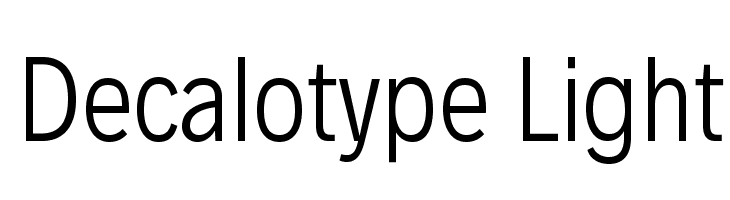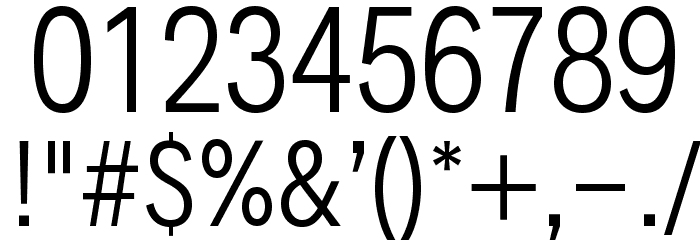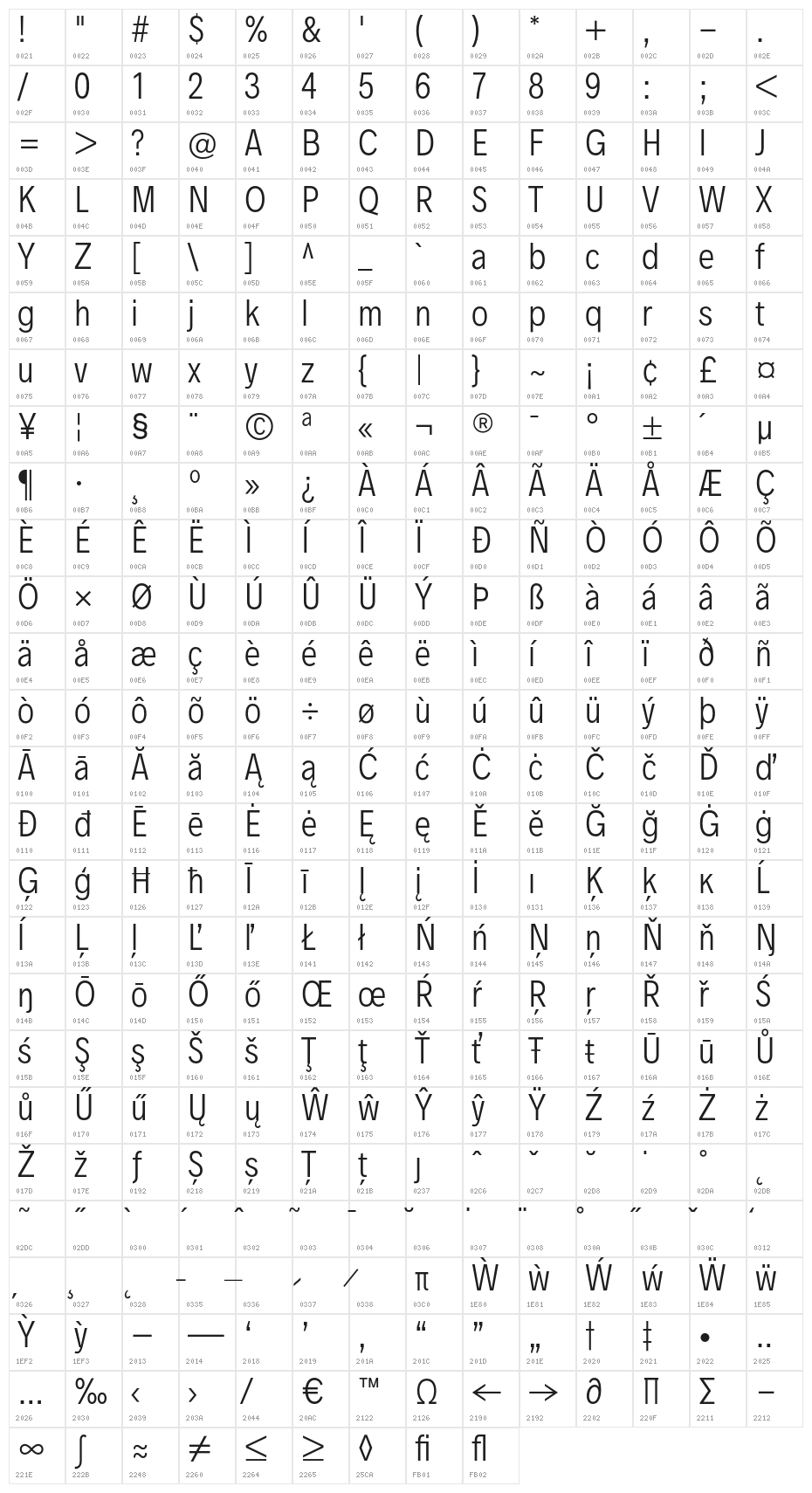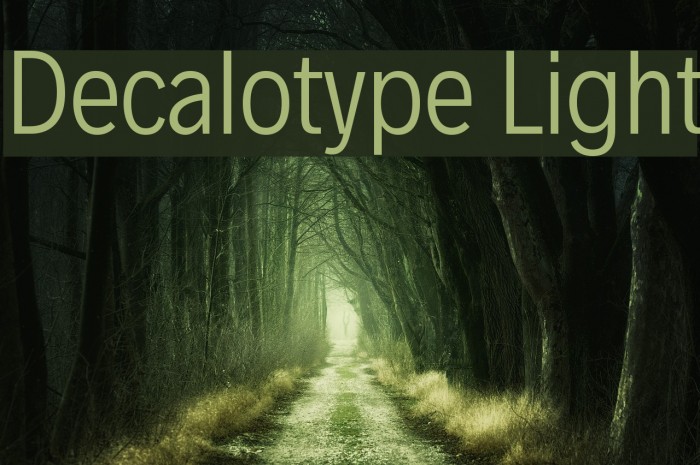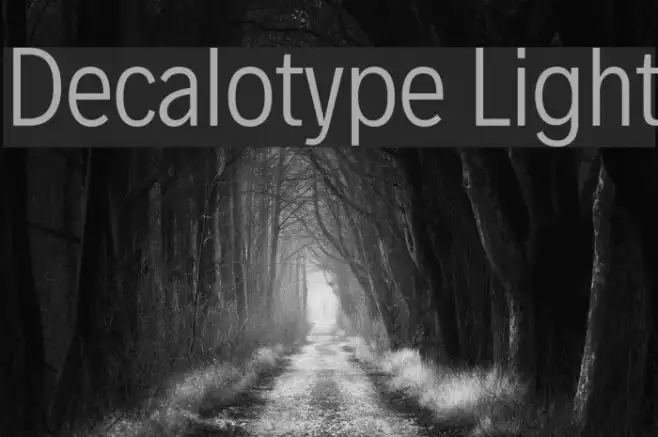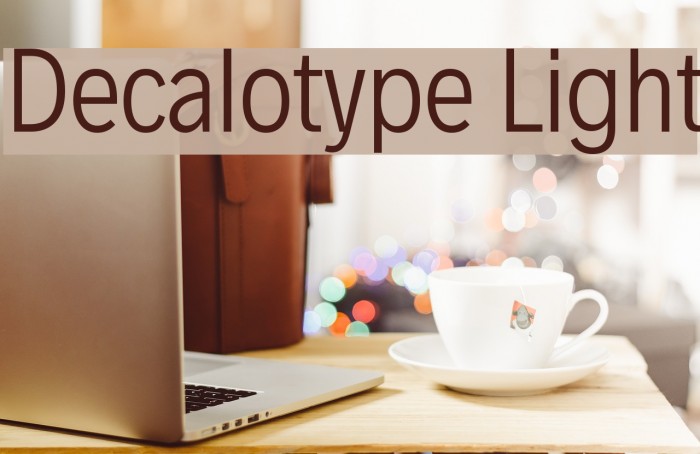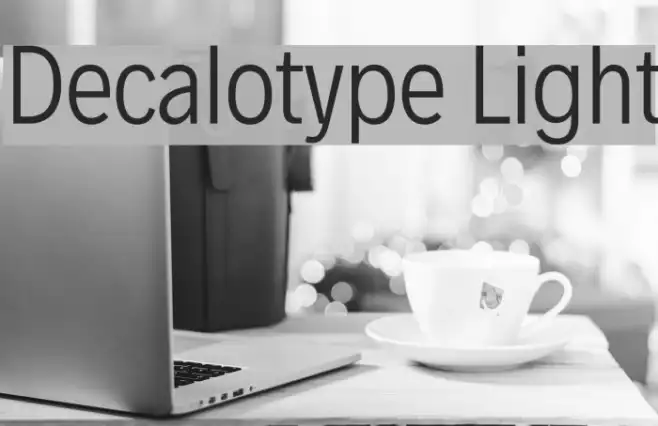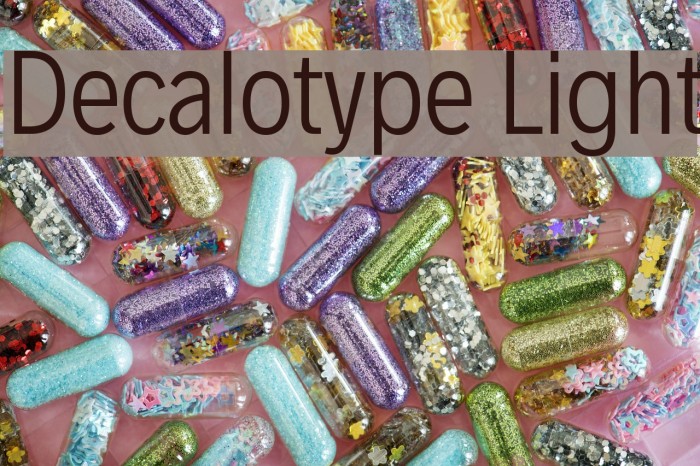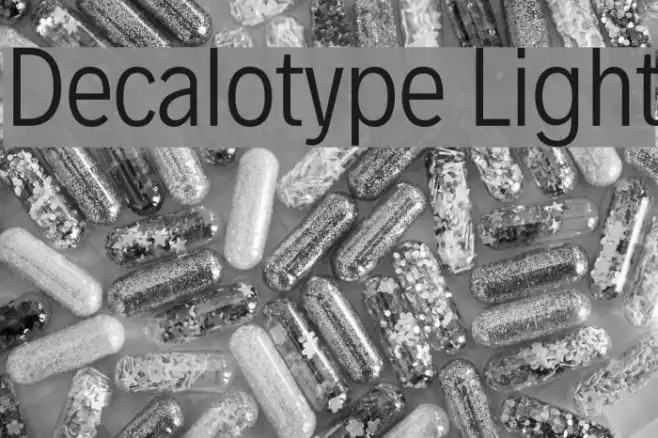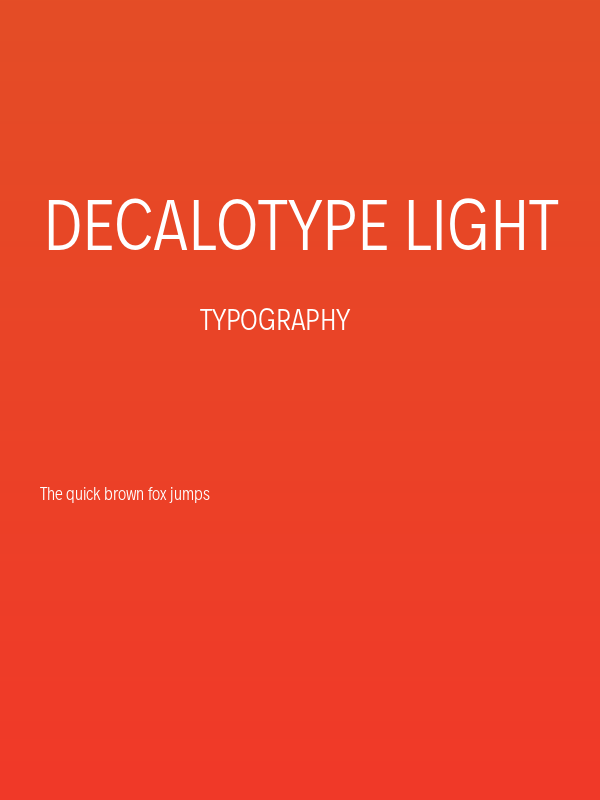
Decalotype Light Font
Decalotype Light Description
This typeface presents a clean and modern aesthetic, characterized by its sans-serif structure. The letters are evenly spaced, contributing to a balanced and harmonious appearance. The strokes are consistent in weight, offering a uniform look across all characters. The design is straightforward, with a focus on readability and simplicity, making it versatile for various applications. The numerals are clear and distinct, matching the overall style of the alphabet. Special characters are well-integrated, maintaining the font's cohesive look. This font is ideal for projects that require a contemporary and uncluttered typeface.